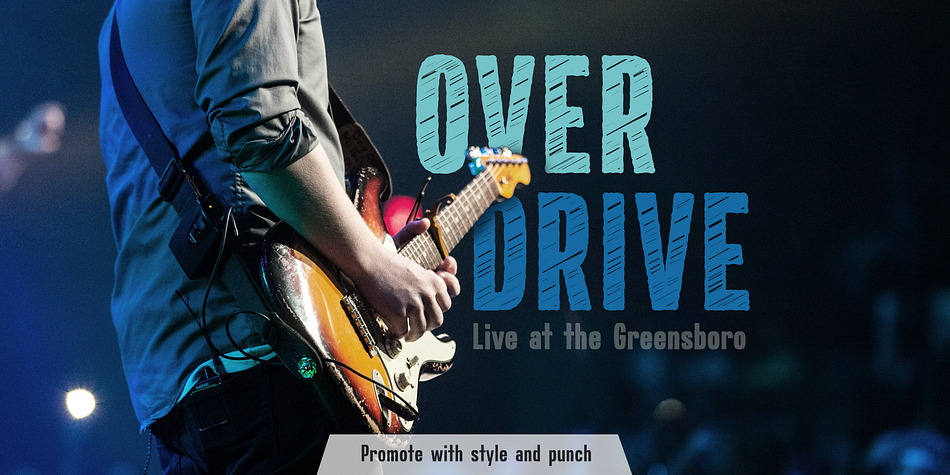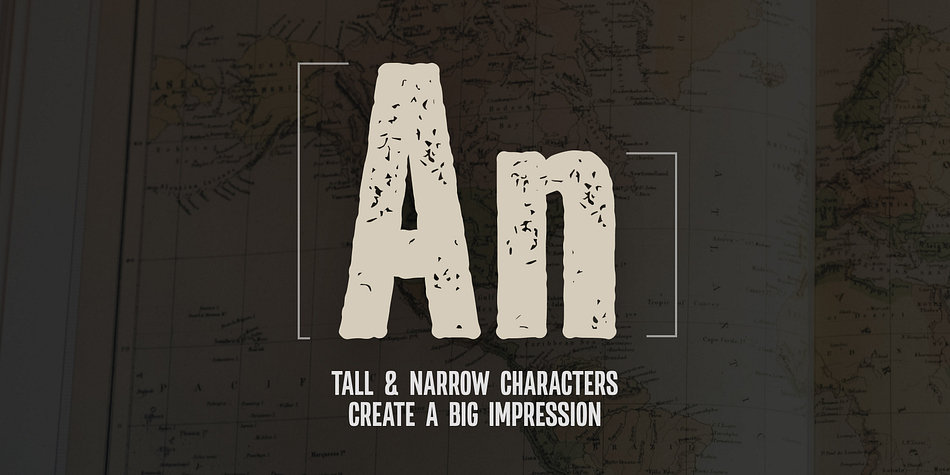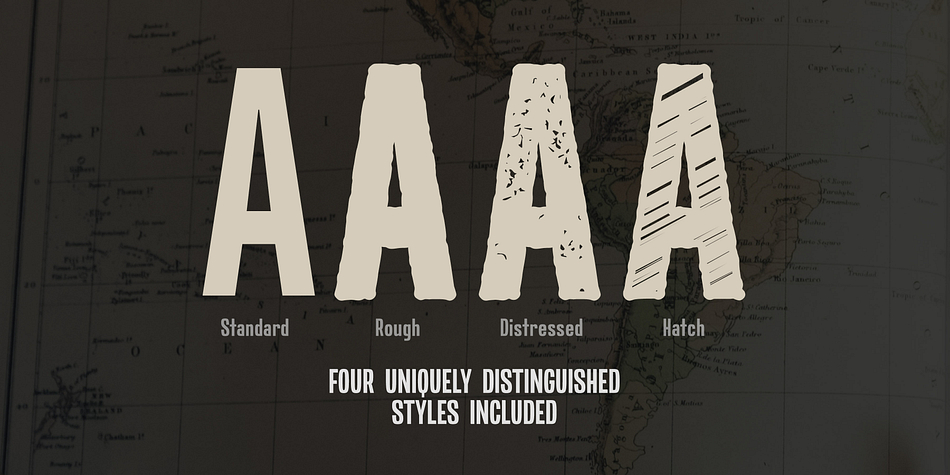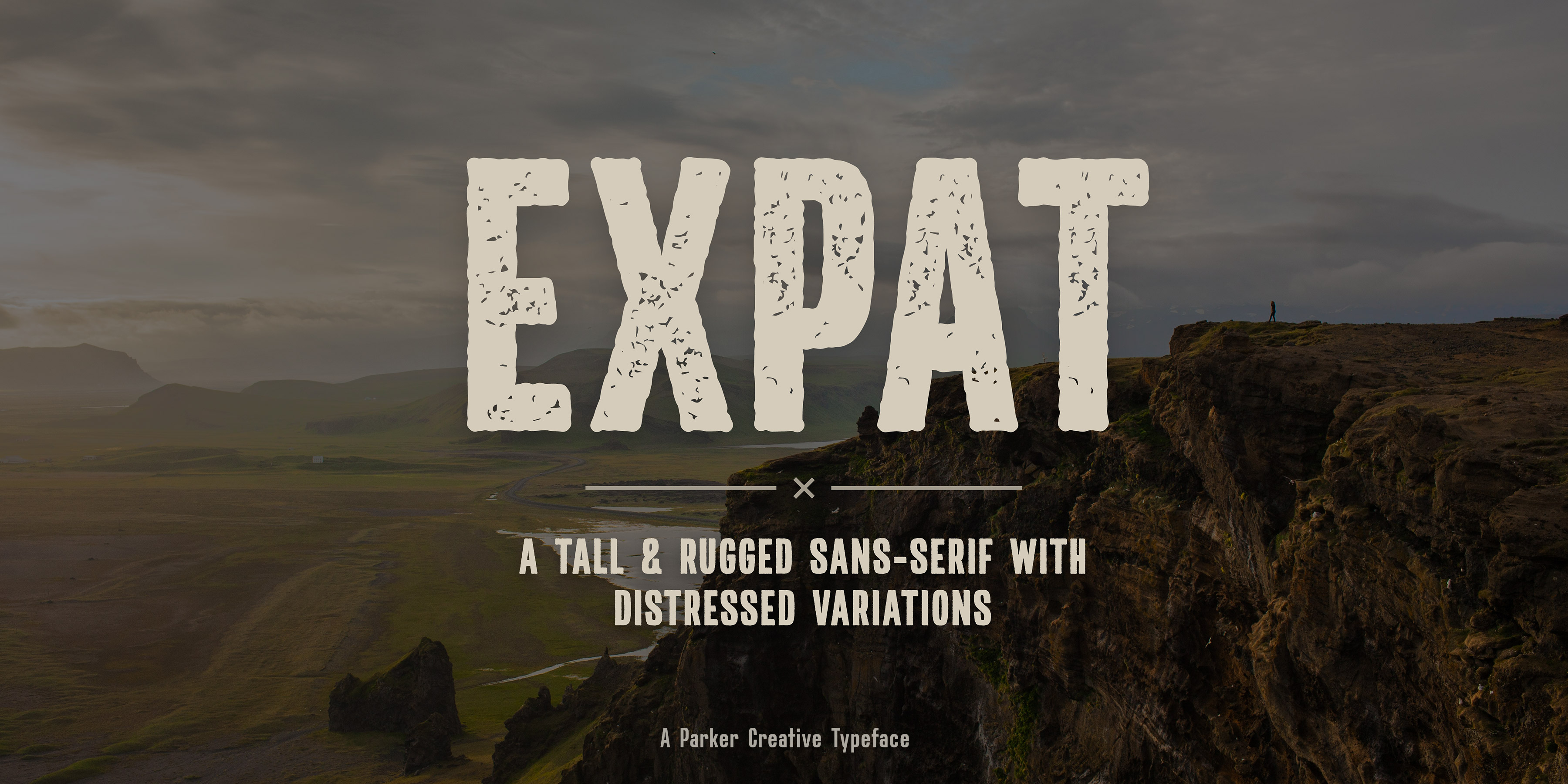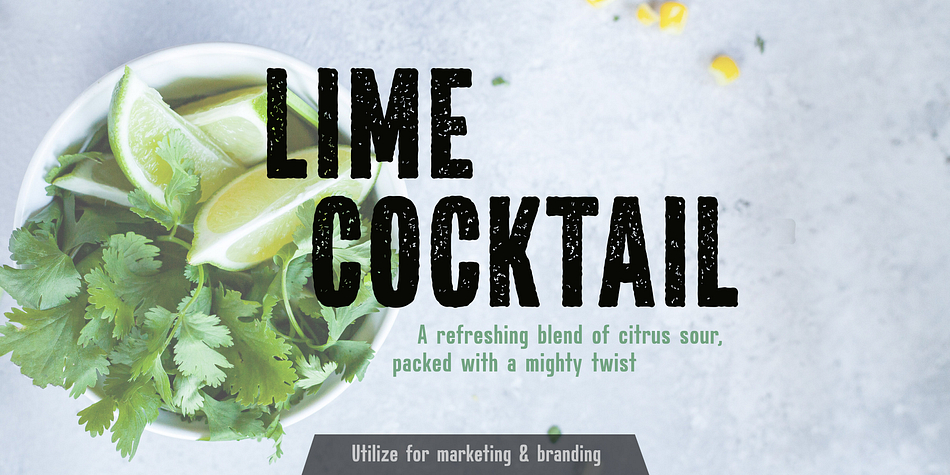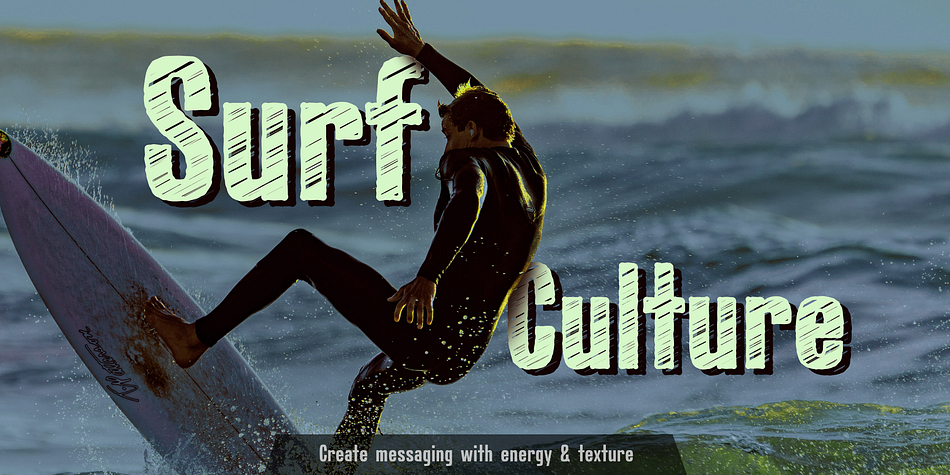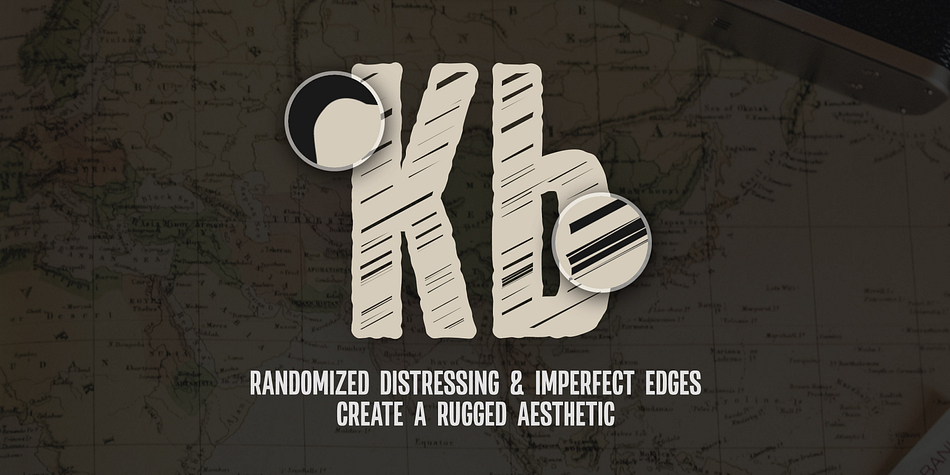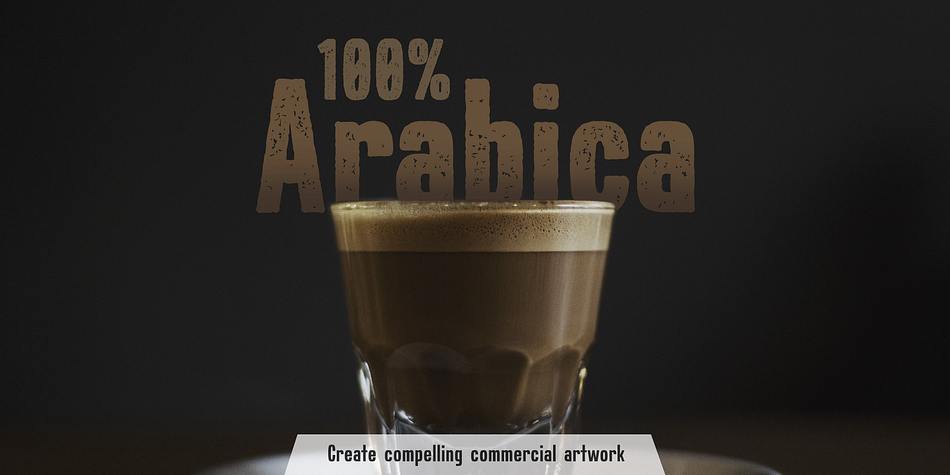
Expat is a display sans, grunge and hand display font family. This typeface has four styles and was published by Parker Creative.
Expat is an exceptionally rugged narrow-body typeface with several unique stylization options. Featuring a tall and narrow character set, Expat allows you to create powerful messaging with a heavily-weighted stance in a concise and compressed horizontal space. Each distinguished style variation creates a unique aesthetic that can be used in a variety of ways. Utilize Expat for various marketing and branding initiatives such as high-energy sports advertising, restaurant and foodservice packaging, event promotion and more.
Included styles: Standard, Rough, Distressed, and Hatch. Included file formats: .OTF .TTF .WOFF